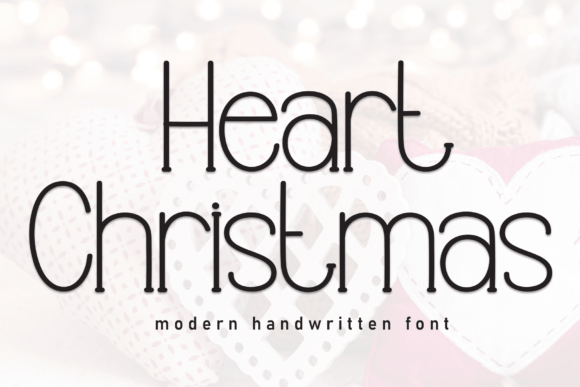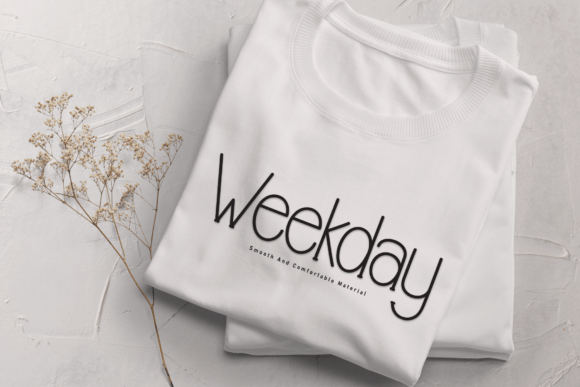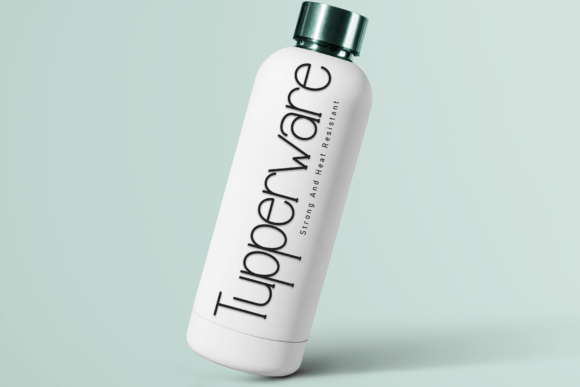
Heart Christmas Font
Heart Christmas is a sweet and friendly handwritten font. Fun and cute, this font is ideal for writing wedding invitations, cards, or any other design that might need a friendly touch!